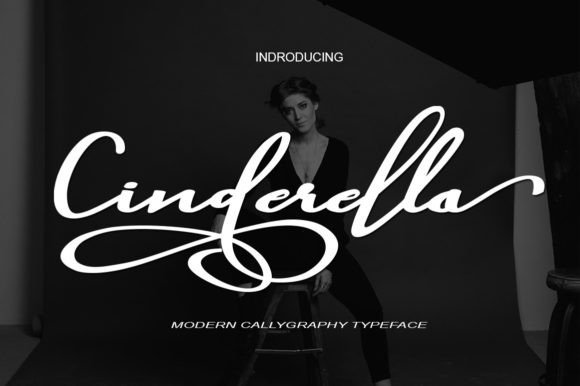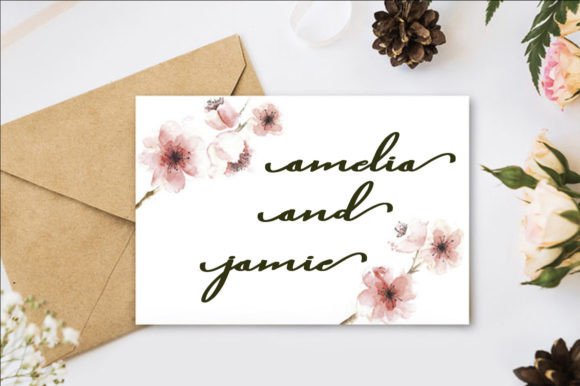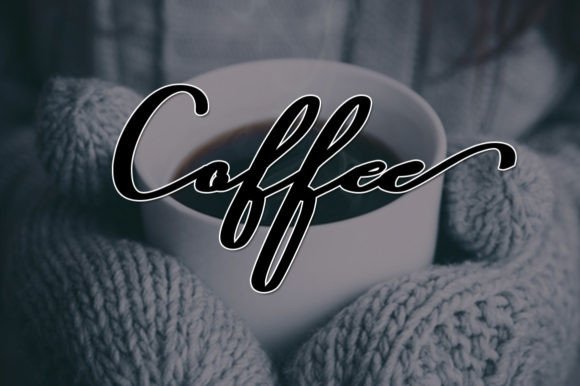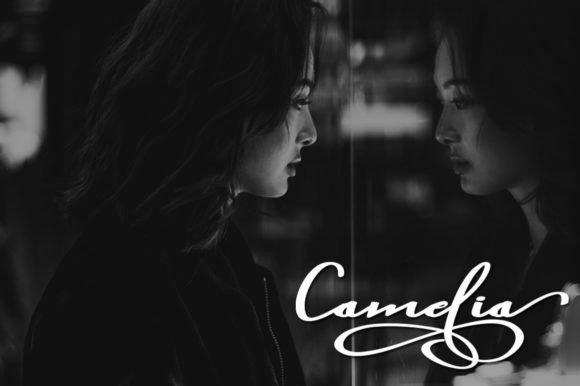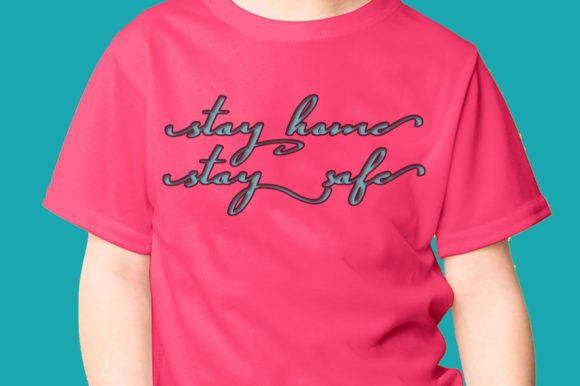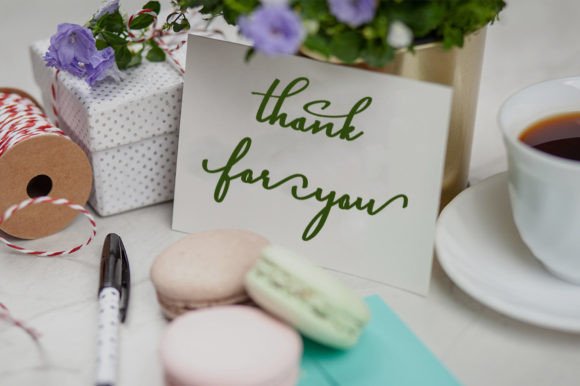
Cinderella Font
About Cinderella Font
“Cinderella” is a dazzling script font that brings a sense of charm and elegance to your design projects. When you incorporate this font into your projects, you can do so with confidence, knowing that it will yield results that you’ll love.
The appeal of “Cinderella” lies in its ability to infuse a sense of glamour and sophistication into your designs. Its script style exudes grace and beauty, making it an excellent addition to a variety of creative endeavors.
Whether you’re working on branding, invitations, posters, quotes, social media graphics, logos, or any project that requires a dazzling and stylish touch, “Cinderella” is the font that can help you achieve your desired results.
In the world of design, creating a memorable and elegant impression is essential, and “Cinderella” excels in this regard. It ensures that your projects are not only visually appealing but also convey a feeling of glamour and refined beauty, leaving a lasting and stylish impact on your audience.
In summary, “Cinderella” is more than just a font; it’s a creative tool that adds a sense of dazzle and elegance to your work. Its glamorous and stylish character make it suitable for a wide range of projects, allowing you to create designs that are not only visually captivating but also exude an air of sophistication. Embrace “Cinderella” with confidence and watch as it enhances your creative endeavors with its dazzling and elegant style.